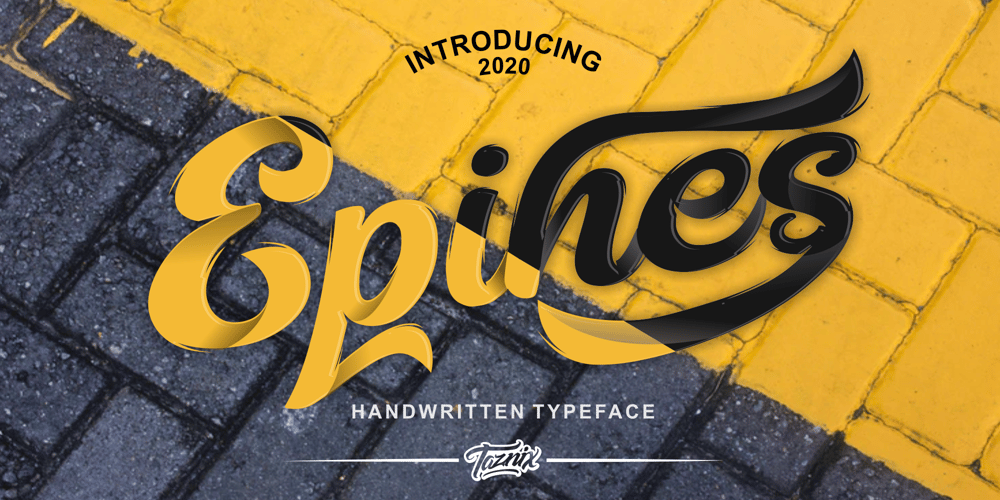
Epines Font Family was designed by Ricky Hartasni and published by Taznix Creative. Epines contains 1 styles and family package options. Epines is a modern handwritten font, carefully handcrafted to become a true favorite. Its casual charm makes it appear wonderfully down-to-earth, readable and, ultimately, incredibly versatile. Epines will look outstanding in any context, whether it’s being used on busy backgrounds or as a standalone headline!Epines is perfect for branding projects, logo, wedding designs, social media posts, advertisements, product packaging, product designs, label, photography, watermark, invitation, stationery and any projects that need handwriting taste.What’s Included : Bonus Swash Ai & Eps Standard glyphs Ligature Works on PC & Mac Simple installations Accessible in the Adobe Illustrator, Adobe Photoshop, Adobe InDesign, even work on Microsoft Word. PUA Encoded Characters – Fully accessible without additional design software. Fonts include multilingual support for; ä ö ü Ä Ö Ü ß ¿ ¡ Hope you enjoy with our font!Taznix